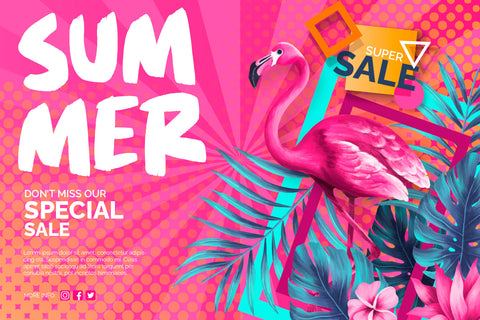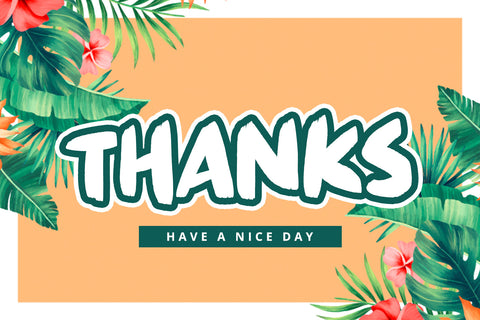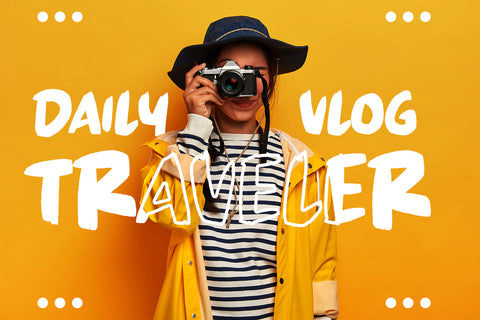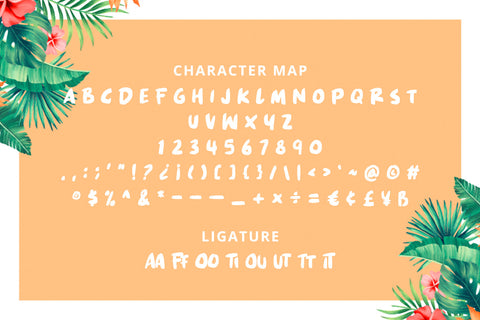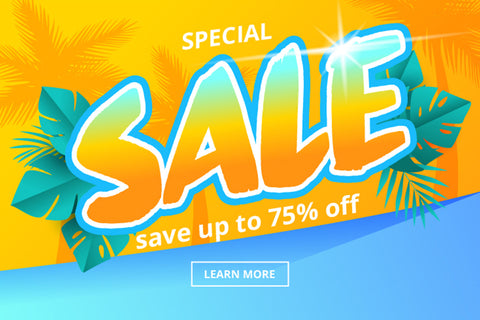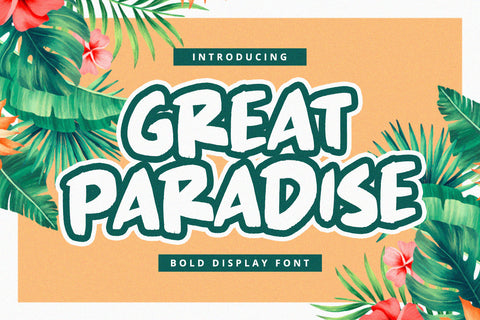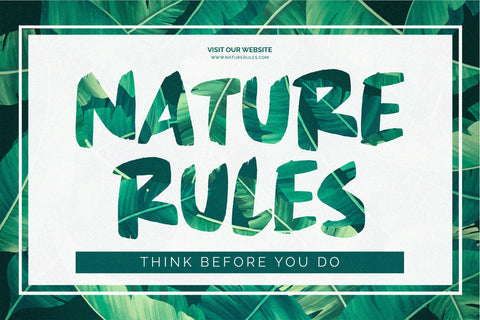
Great Paradise - Bold Display Font
Great Paradise is a bold display font with authentic and playful feels. It will be perfectly used for Branding, Logo Design, Lettering, Logotype, Clothing, Poster, magazine, packaging, posters, shopping bags, t-shirts, book covers, photography, special events and other design project.